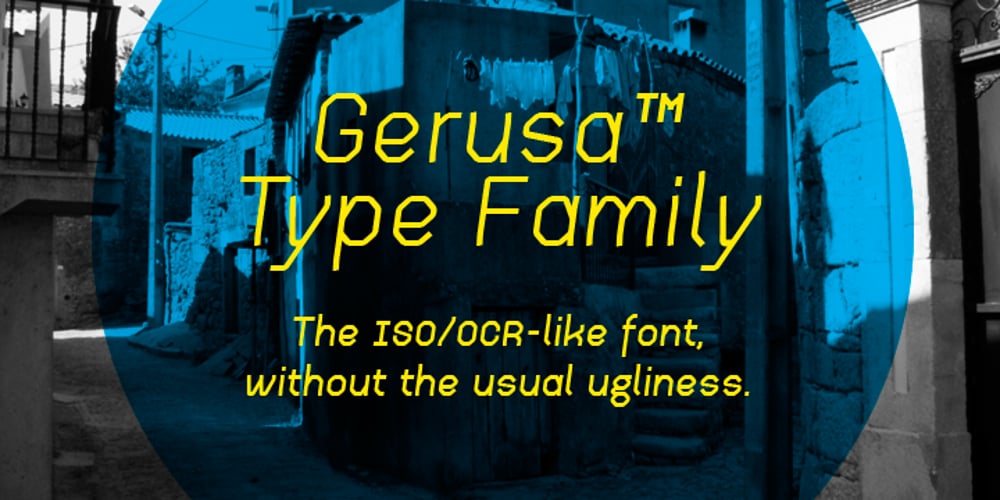
Gerusa Font Family was designed by Fábio Duarte Martins and published by Scannerlicker. Gerusa contains 18 styles and family package options. Gerusa is a sans-serif technical typeface family by Loligovulgaris.com. It features a 970+ glyph set per cut, with monospaced uppercase and text-suitable lowercase characters, a very complete set of diacritics, math glyphs and a full range of OpenType features. This family is OCR and ISO inspired, with an engineering/architectural feel, robust and pragmatic, with the usual technical ugliness chopped away.